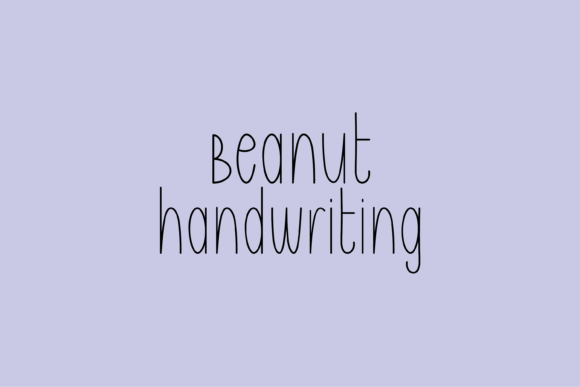
Journey into the world of Beanut Font, a charming and playful handwritten font that will infuse your designs with a touch of whimsy and uniqueness. Created by the talented Woracado, this captivating script font exudes a friendly and approachable personality, making it an ideal choice for adding a personal touch to your creative projects.
Beanut Font boasts a delightful blend of simplicity and sophistication, with its elegant curves and playful strokes dancing harmoniously together. Its versatility knows no bounds, allowing it to effortlessly elevate logos, wedding invitations, quotes, advertisements, print materials, magazines, and more.
Imagine your designs adorned with the enchanting beauty of Beanut Font. Its ability to infuse joy and personality into any project is truly remarkable. Picture your wedding invitations radiating warmth and elegance, your quotes taking on a whole new life with an added touch of charm, and your advertisements captivating audiences with their playful and inviting appeal.
With Beanut Font, you'll discover a font that goes beyond mere aesthetics. It's a font that speaks to the heart, conveying emotions and messages with its unique character. Its ability to evoke smiles and create a lasting impression is truly remarkable.
So, embark on a creative journey with Beanut Font, and let its whimsical and heartwarming charm transform your designs into masterpieces that resonate with your audience. Embrace the power of this extraordinary font and unlock a world of possibilities, where creativity flourishes and imagination takes flight.